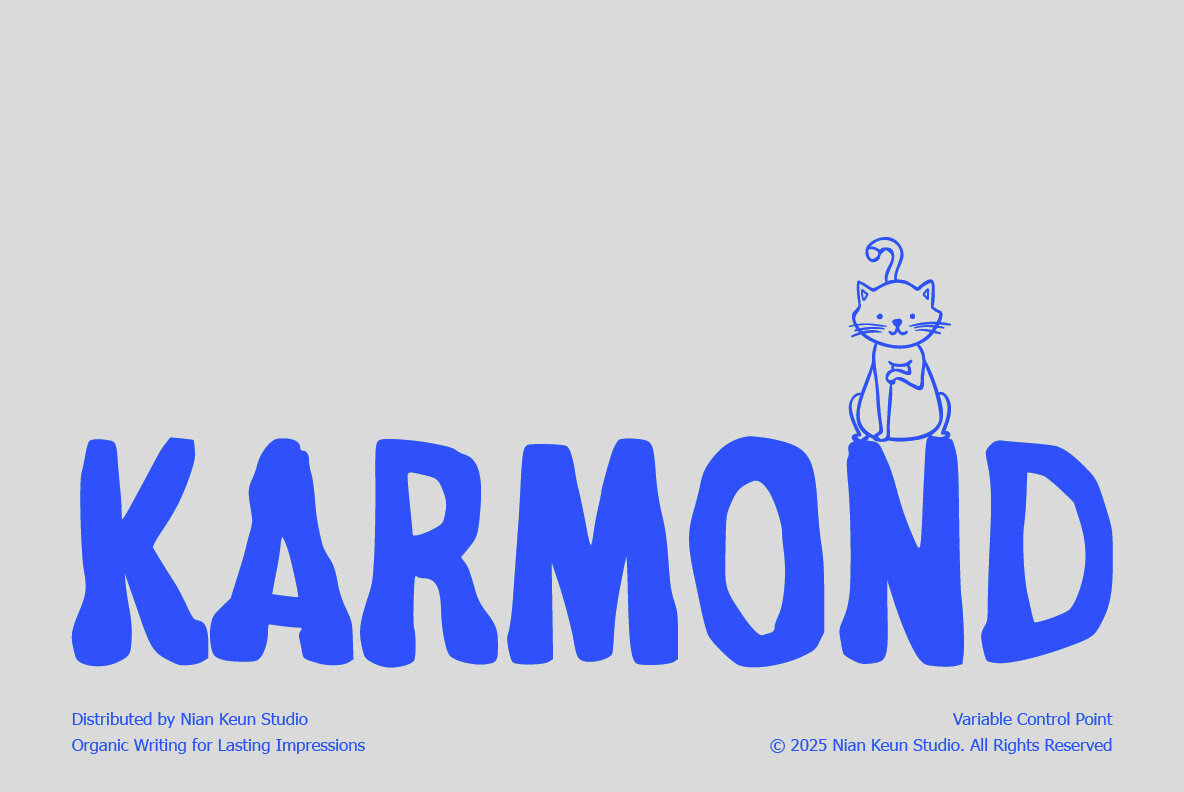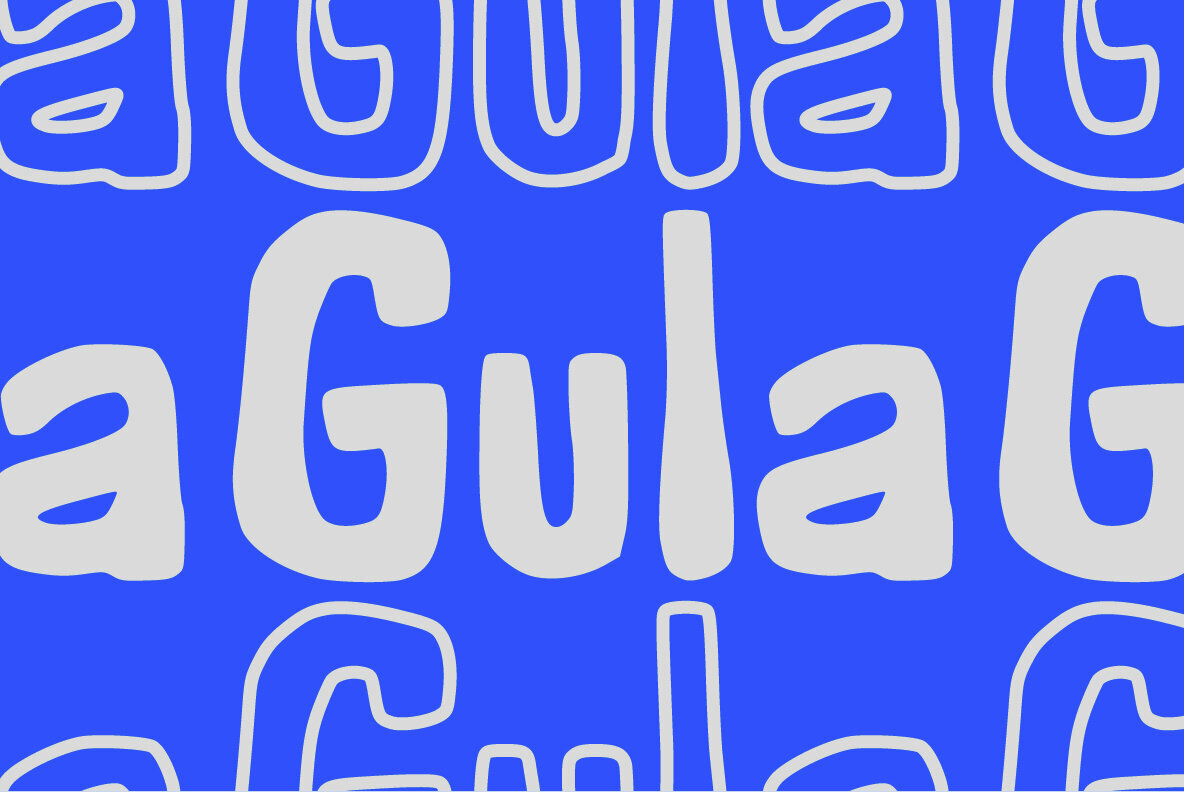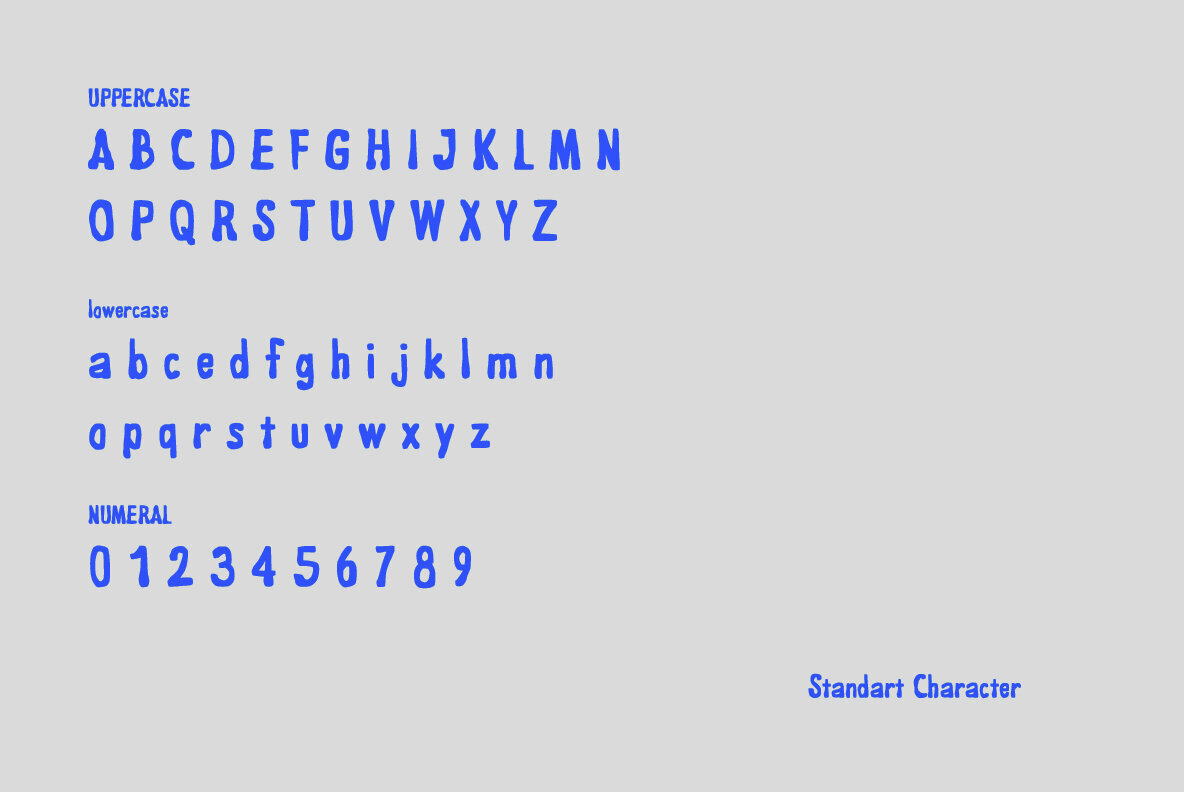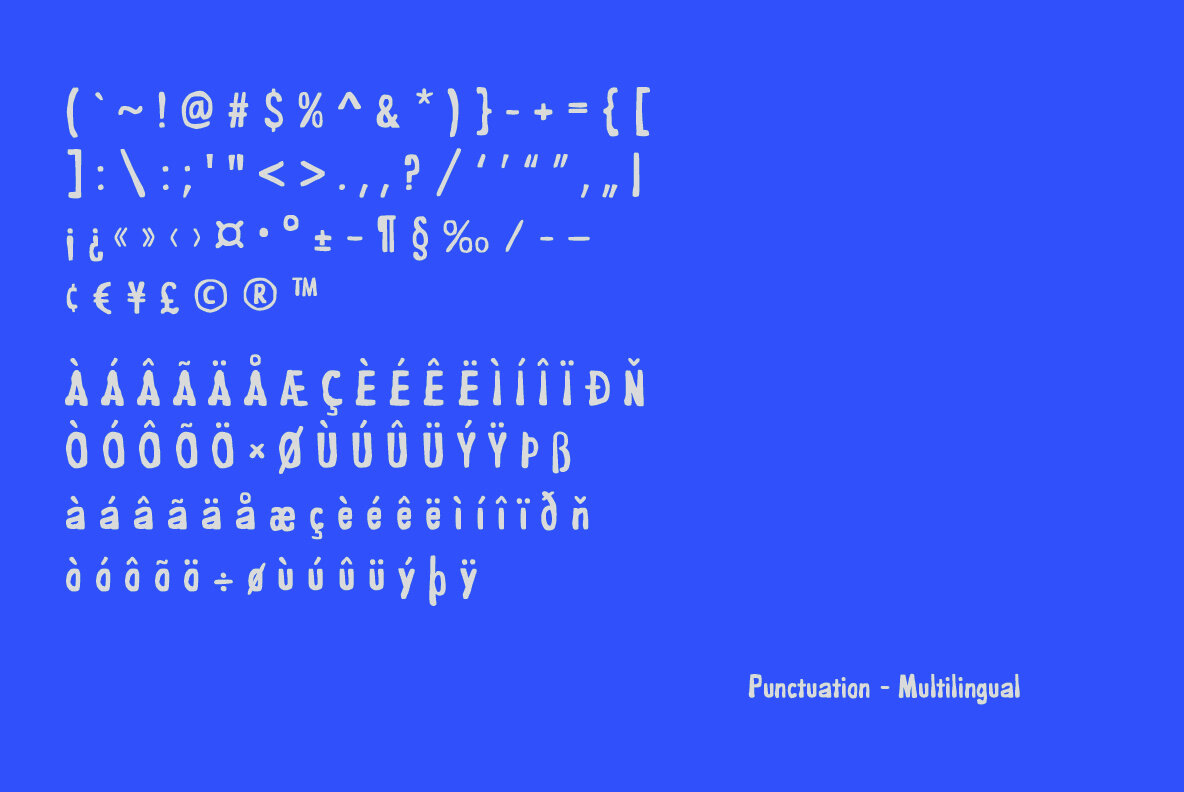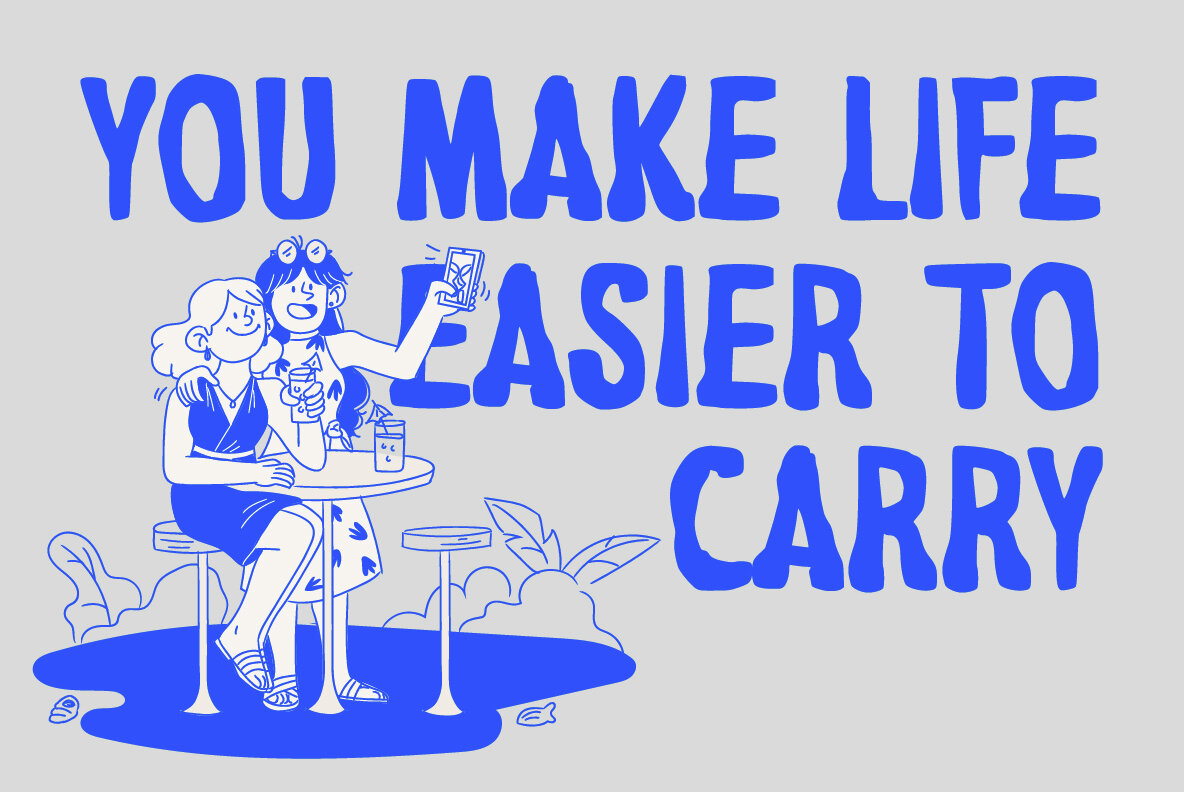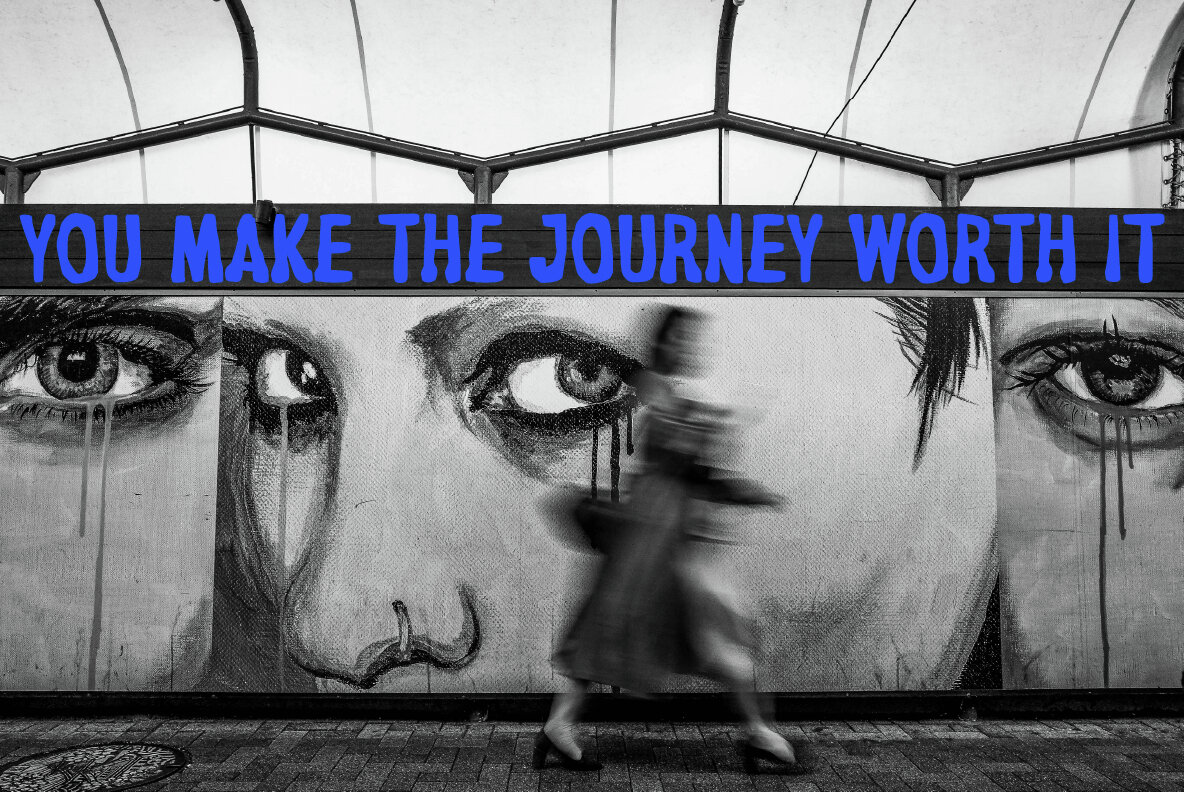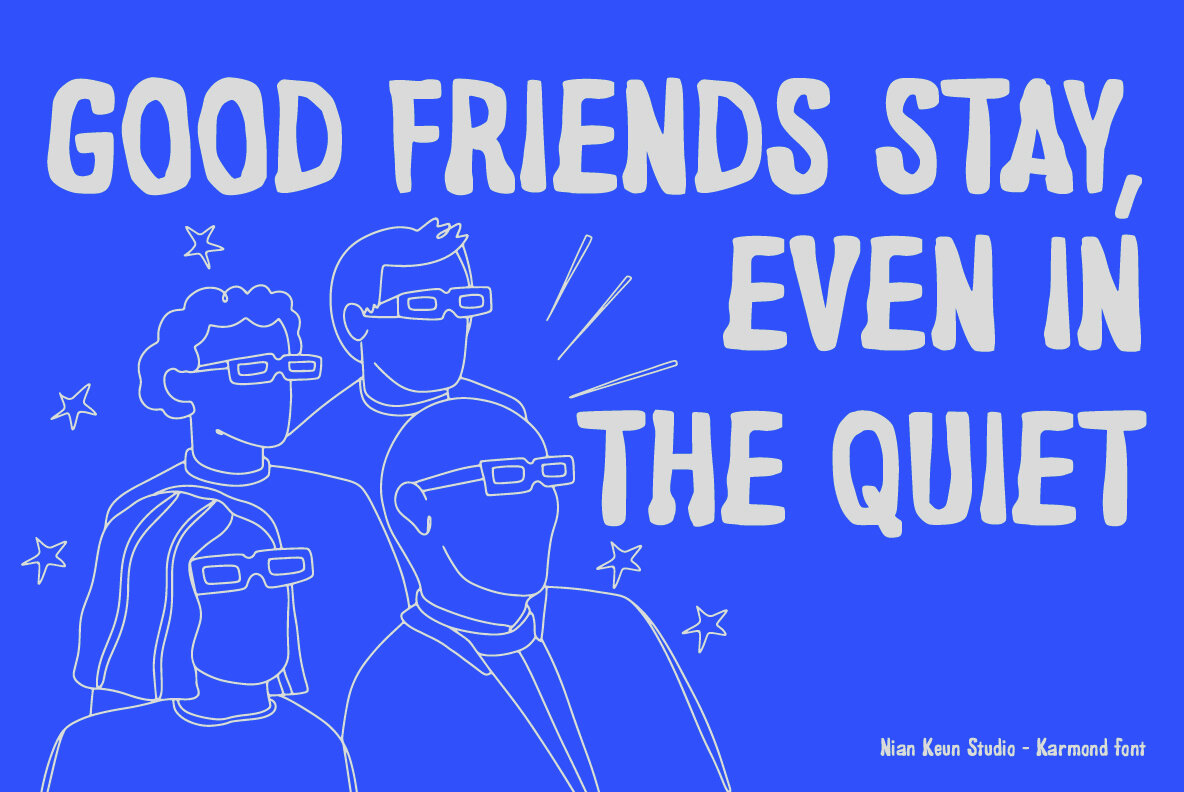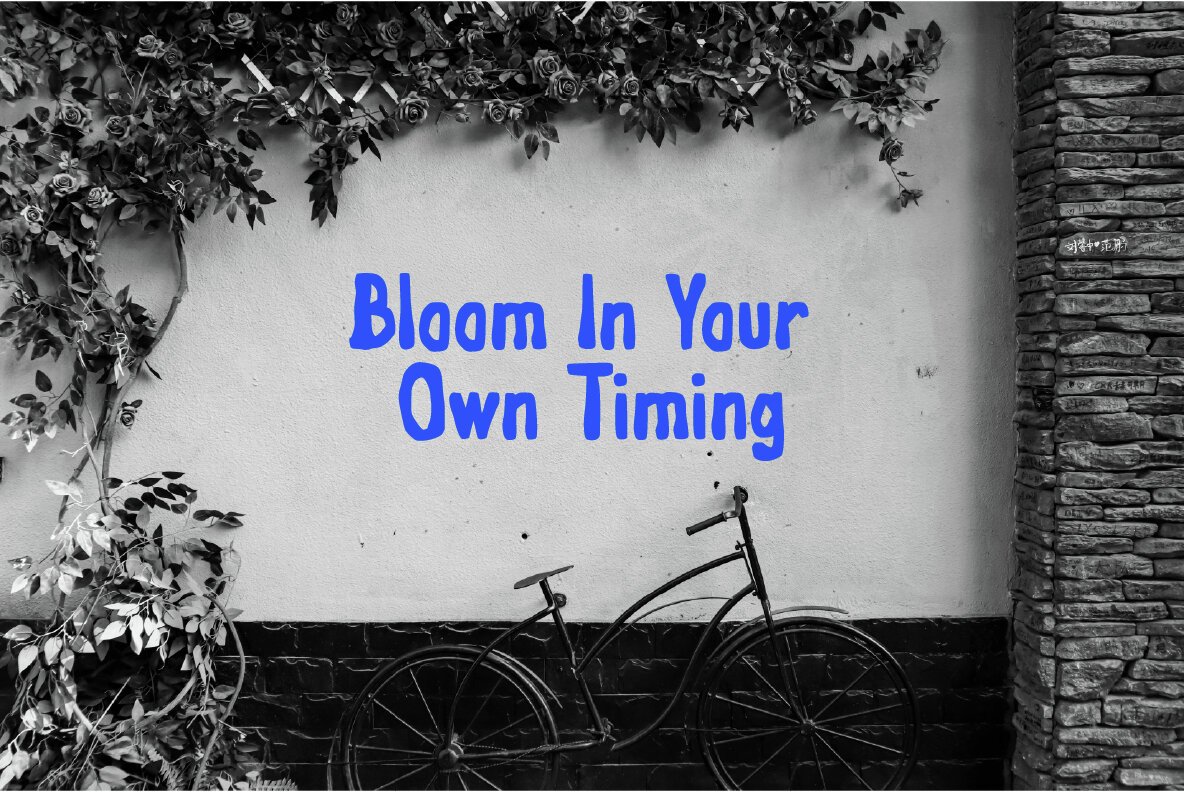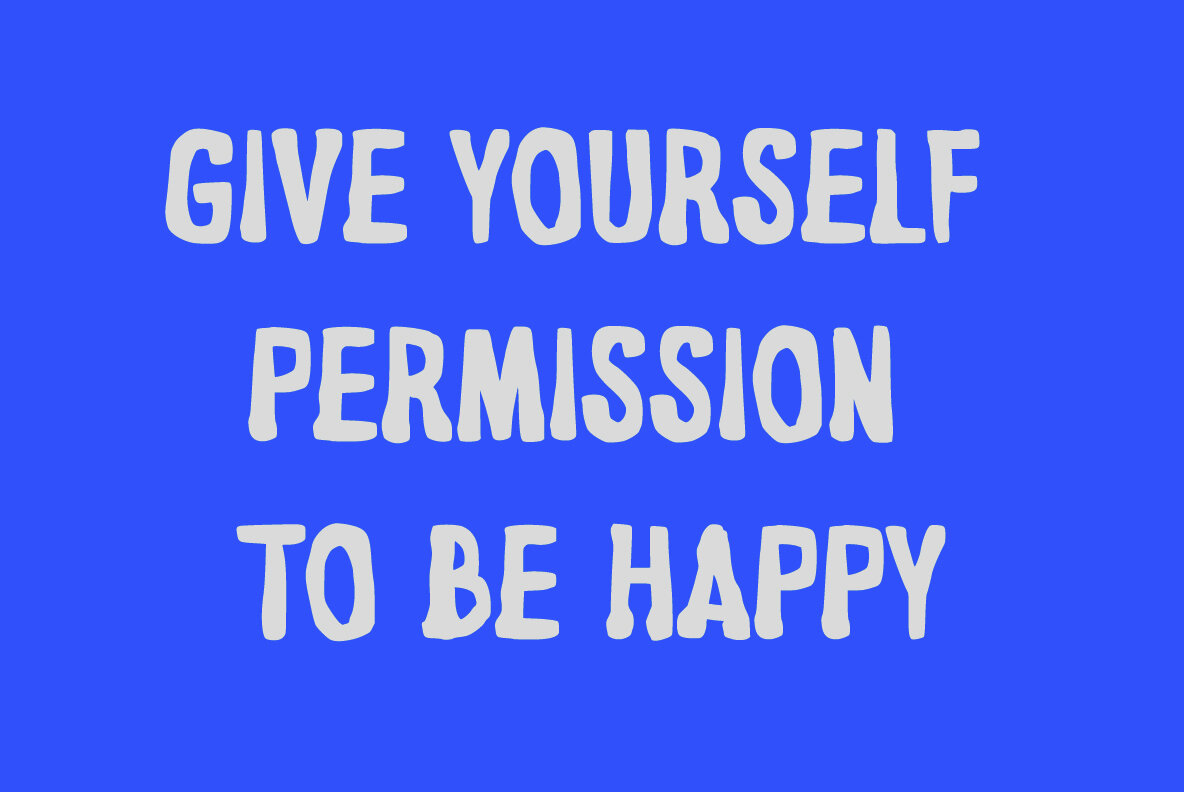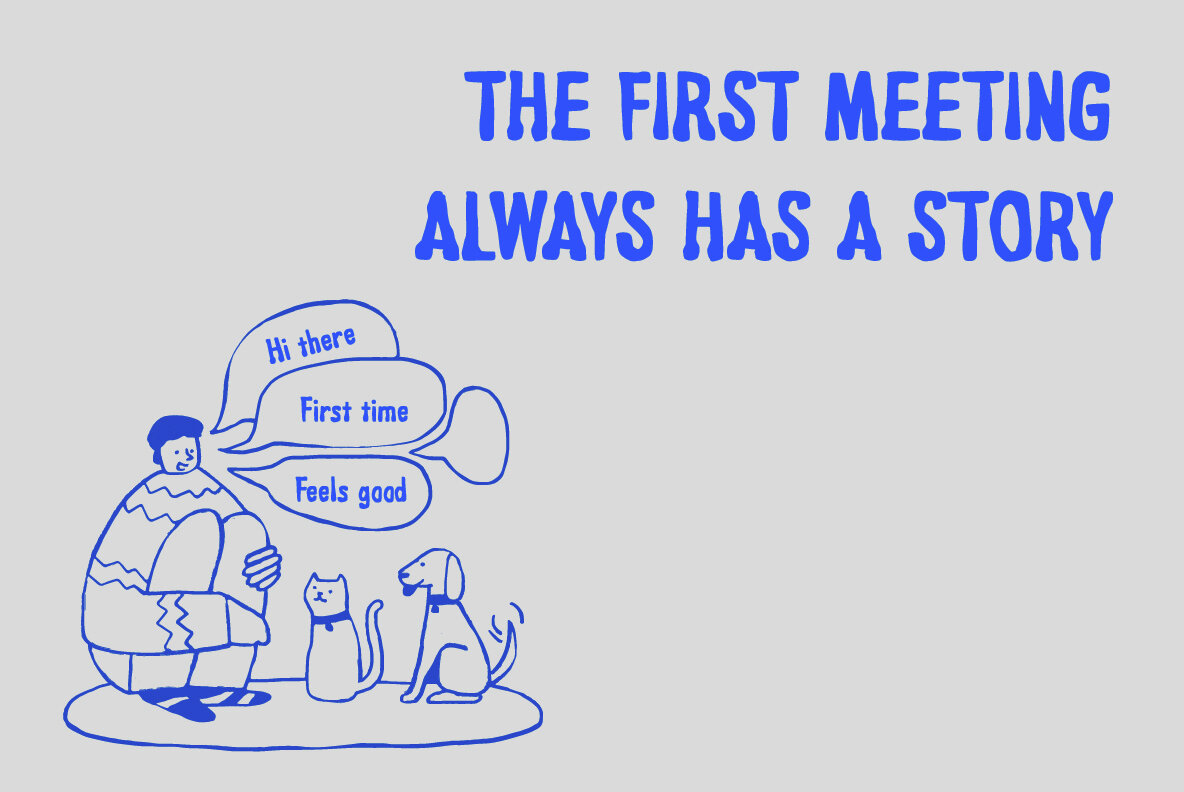
Karmond Font
Karmond Regular
Karmond stands out as a charming display typeface shaped by the whimsical, imperfect strokes reminiscent of childhood writing. Its letters are purposefully irregular and organic, embodying a sense of warmth and personality that is both spontaneous and inviting. The result is type that brings a distinctly human touch to any visual project, making Karmond an ideal font for conveying sincerity and emotional connection. Soft, rounded forms and a natural rhythmic flow define Karmond, offering a genuine handmade appearance without veering into overt polish. This balance allows it to support designs that benefit from a touch of innocence and warmth. The uniquely uneven contours infuse your graphics with approachability, encouraging a sense of playful storytelling and friendly engagement. Features:Karmond: Hand-Crafted Display Typeface With Playful Character